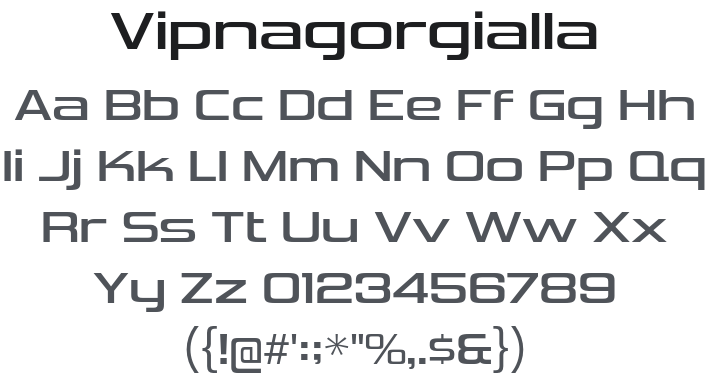
Vipnagorgialla Font Family
About Vipnagorgialla
Vipnagorgialla combines the strength of industrial design with the aerodynamic precision of aerospace engineering. Its wide, squared forms convey power and control, making it ideal for bold display work in technology, sports, and entertainment. Five weights with italics range from light, agile styles to heavy, high-impact cuts, all maintaining clean geometry and confident proportions. Built for futuristic branding, gaming, motorsport, and industrial applications, Vipnagorgialla projects authority and clarity wherever performance and modernity meet.